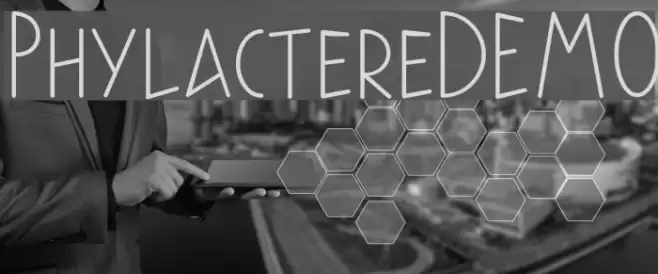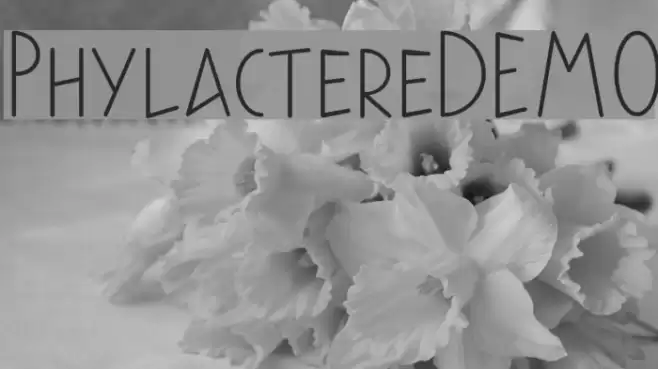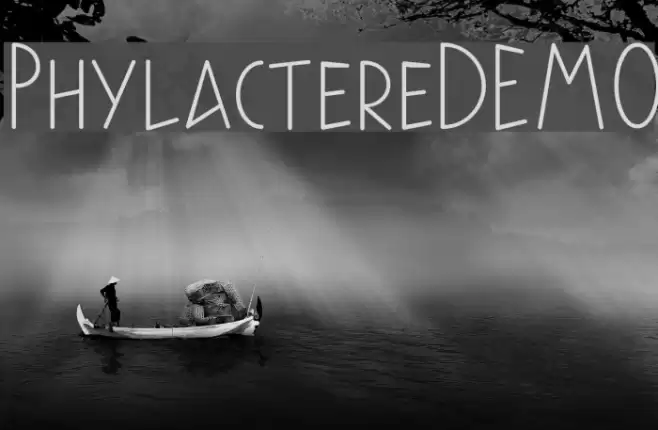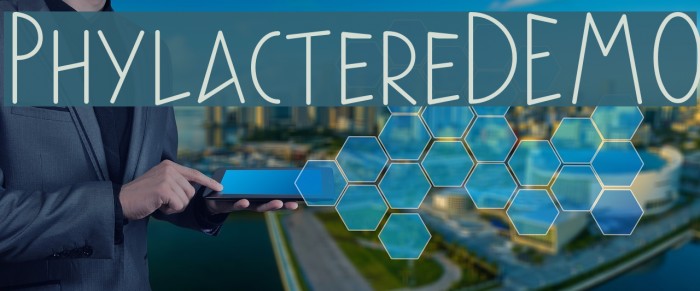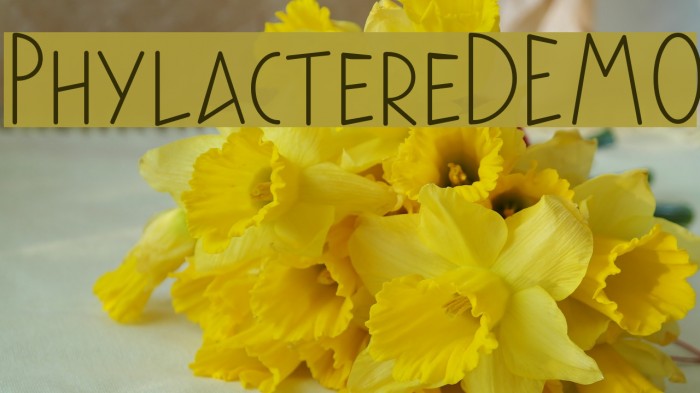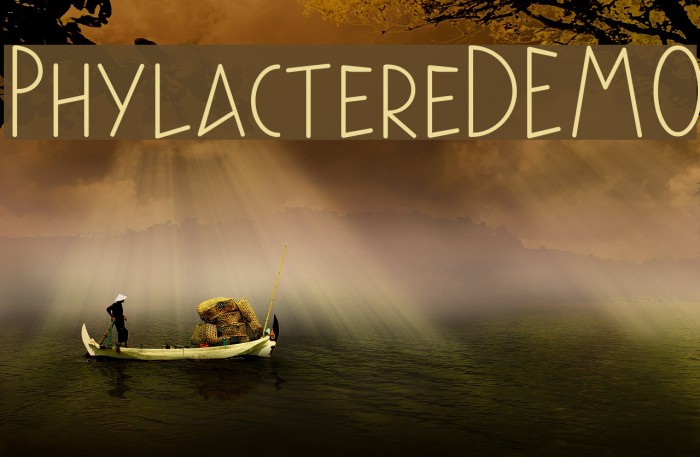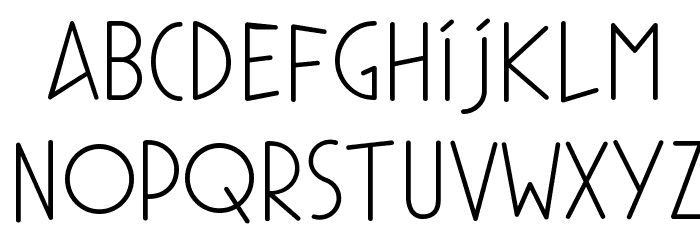
PhylactereDEMO Font
PhylactereDEMO Description
This font exhibits a playful and modern style with a handwritten touch. The characters are slightly elongated with a consistent stroke width, giving it a clean and approachable appearance. The uppercase letters are tall and narrow, while the lowercase letters maintain a similar height, creating a uniform look. The font features unique curves and angles, particularly noticeable in letters like 'A', 'K', and 'R'. The overall design is simple yet distinctive, making it suitable for creative projects that require a personal and informal touch.
A playful, modern handwritten font with consistent stroke width and unique character shapes from Crazy fonts.
- Proposed Projects: Ideal for comic books, children's books, greeting cards, and playful branding projects.